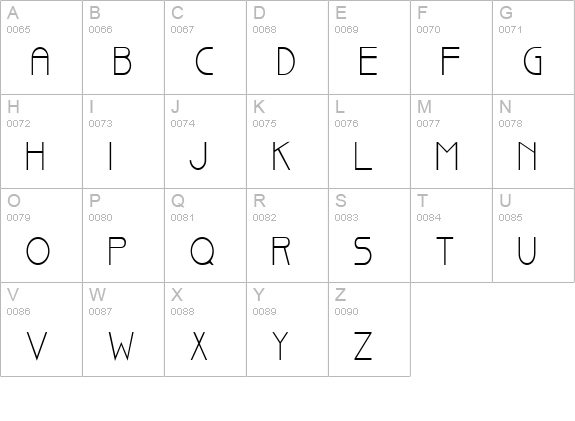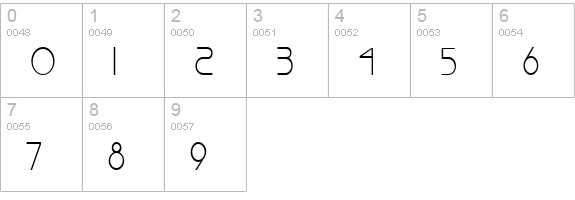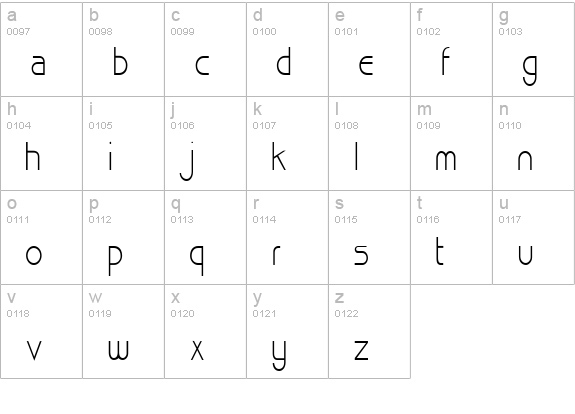
Basque-Condensed Normal is the standard, neutral, condensed-width variant in the Basque typeface family \xE2\x80\x94 well suited to general body text, paragraphs, and standard typographic work.
Basque-Condensed Normal font is a sleek and modern typeface designed for a wide range of design projects. With its condensed style, this font is perfect for creating eye-catching headlines, signage, and branding materials. The clean lines and sharp edges give Basque-Condensed Normal a professional and sophisticated look that will elevate any design. What's even better is that Basque-Condensed Normal font is available for free download at FontsMarket.com. This means that you can easily access this versatile font and incorporate it into your projects without any cost. Don't miss out on this opportunity to enhance your designs with the elegant and stylish Basque-Condensed Normal font. Download it now and take your typography to the next level!